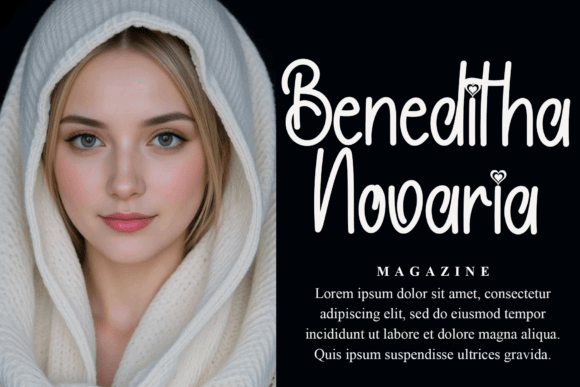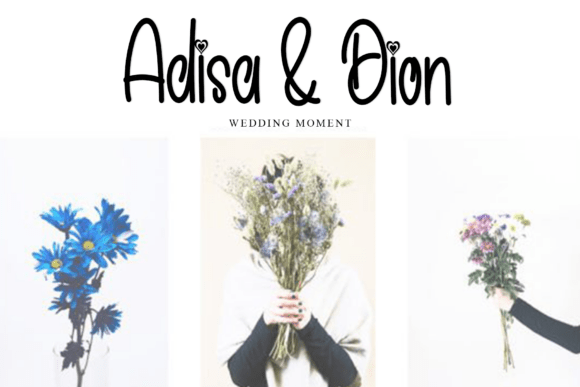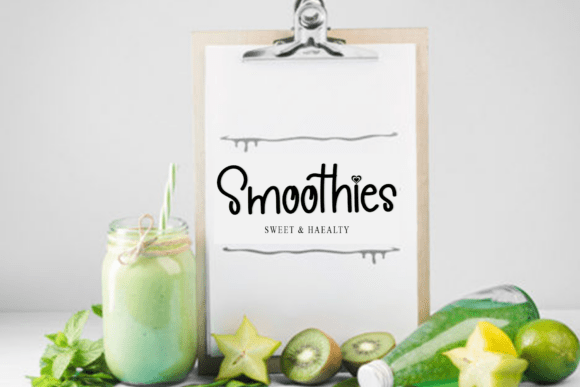
Introduction to Simple Natural Font
Have you ever been brainstorming ideas for a creative project, and suddenly, the perfect font pops into your head? It’s like a spark of inspiration that sets your entire design in motion. For designers, finding the right font can make all the difference between a good project and a great one. And that’s where the Simple Natural Font comes in – a casual and creative font that exudes warmth and friendliness, perfect for personal projects, invitations, and social media graphics.
The Simple Natural Font’s round, playful strokes create a relaxed and approachable feel, making it an ideal design resource for any creative project. Its charming, hand-drawn aesthetic adds a fun and unique touch to any design, making it a high-quality addition to your design arsenal. Plus, with standard PUA Encoded glyphs, you can easily use it in various application engines like Adobe Photoshop, Corel, and Adobe Illustrator.
Key Features of Simple Natural Font
- High-quality design resource for creative projects, offering a unique and elegant aesthetic.
- Designed with simplicity and naturalness in mind, making it perfect for a wide range of creative projects.
Honest Review: Simple Natural Font
As a designer, I’m always on the lookout for high-quality design resources to enhance my creative projects. Recently, I stumbled upon the Simple Natural Font, and I’m excited to share my thoughts on this font.
- High-quality design: The Simple Natural Font boasts excellent typography, making it perfect for various design projects.
Any limitations ⚠️
- Limited character set: The Simple Natural Font has a relatively small character set, which might be a limitation for designers who need a wide range of characters.
- Not suitable for large-scale projects: Due to its limited character set, this font might not be the best choice for large-scale projects that require a lot of text.
Overall, I think the Simple Natural Font is a great addition to any designer’s toolkit. While it has some limitations, its high-quality design and free download make it a great resource for creative projects. I’d definitely recommend it for smaller-scale projects or as a supplement to other fonts.
To get the most out of the Simple Natural Font, use it in conjunction with other design elements that complement its natural and simple style. Experiment with different font sizes and styles to create a unique and eye-catching design.
The Simple Natural Font is suitable for a wide range of creative projects, including logos, business cards, brochures, and social media graphics. Its simple and natural style makes it a great choice for any project that requires a clean and professional look.
Can I modify the Simple Natural Font to suit my specific design needs?